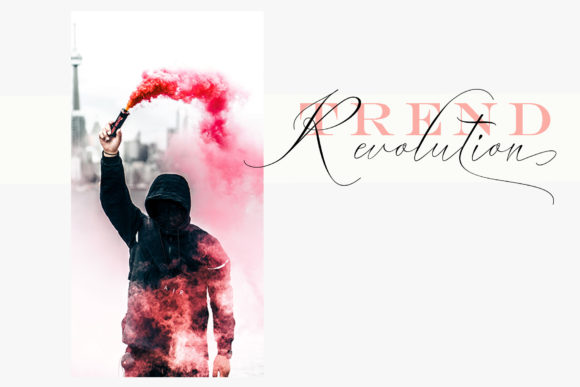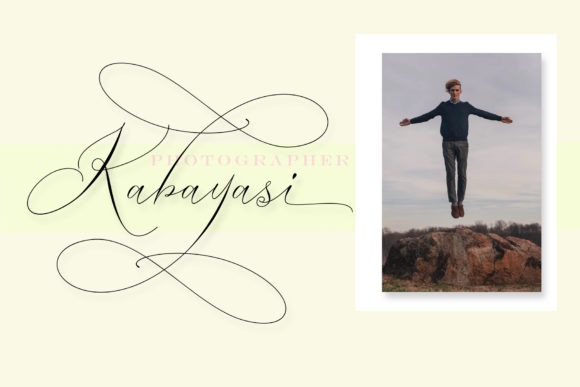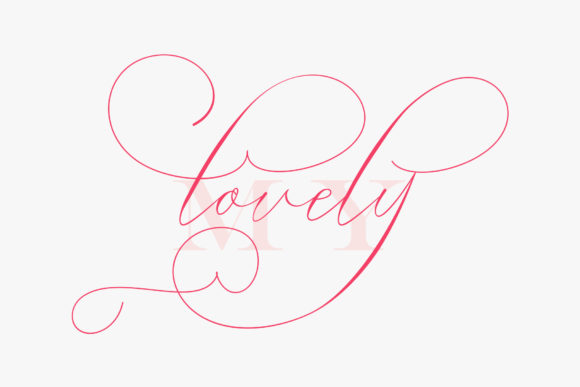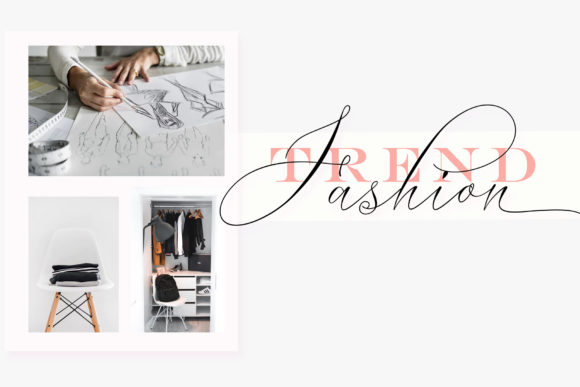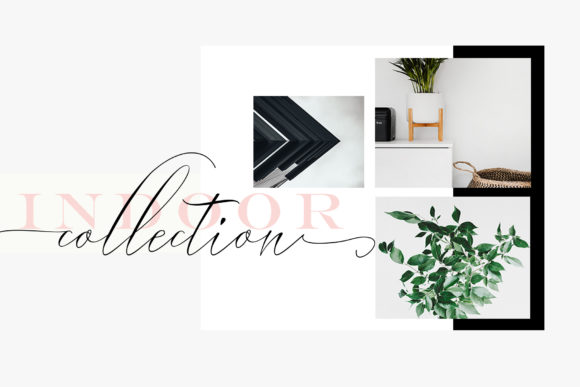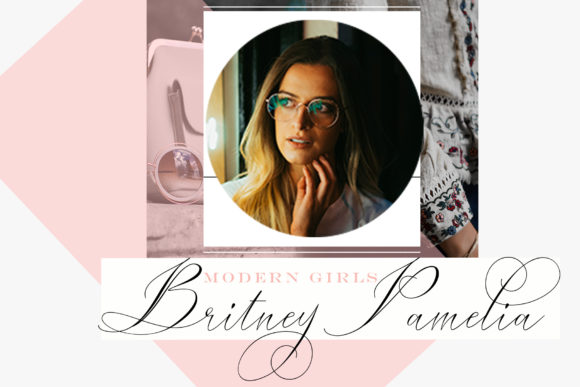
Bungalow Script Font: Adding a Loving Touch to Your Designs
The Bungalow script font is a delightful typeface that can add a warm and loving feeling to your designs. With its amazing handwritten touch, it’s perfect for crafters and designers who want to create a personal and emotional connection with their audience. In this article, we’ll explore the features and benefits of the Bungalow script font, and how you can use it to elevate your designs.
The Characteristics of Bungalow Script Font
The Bungalow script font is a beautiful, handwritten typeface that exudes warmth and friendliness. Its flowing lines and curves give it a natural, organic feel that’s perfect for creating a sense of comfort and approachability. The font features:
- Handwritten touch: The Bungalow script font has a lovely handwritten touch that makes it perfect for adding a personal touch to your designs.
- Flowing lines: The font’s flowing lines and curves create a sense of movement and fluidity, making it perfect for creating a sense of energy and dynamism.
- Natural feel: The Bungalow script font has a natural, organic feel that’s perfect for creating a sense of comfort and approachability.
Benefits of Using Bungalow Script Font
The Bungalow script font offers a range of benefits for designers and crafters, including:
- Emotional connection: The font’s handwritten touch and natural feel help create an emotional connection with your audience, making your designs more relatable and engaging.
- Versatility: The Bungalow script font is versatile and can be used for a range of design projects, from branding and packaging to invitations and stationery.
How to Use Bungalow Script Font in Your Designs
The Bungalow script font can be used in a range of design projects, including:
- Branding and packaging: Use the Bungalow script font to create a warm and welcoming brand identity that resonates with your audience.
- Invitations and stationery: Add a personal touch to your invitations and stationery with the Bungalow script font, making them more special and memorable.
- Digital designs: Use the font in your digital designs, such as social media graphics and blog posts, to add a touch of warmth and personality.
Tips for Getting the Most Out of Bungalow Script Font
To get the most out of the Bungalow script font, try the following tips:
- Use it with contrasting fonts: Pair the Bungalow script font with contrasting fonts to create visual interest and hierarchy.
- Experiment with colors: Try out different colors and textures to add depth and dimension to your designs.
- Keep it simple: Don’t overcomplicate your designs – keep them simple and clean to let the font shine.
The Bungalow script font is a beautiful and versatile typeface that can add a loving touch to your designs. With its handwritten touch and natural feel, it’s perfect for creating an emotional connection with your audience. Whether you’re a designer or crafter, the Bungalow script font is a great addition to your toolkit. So why not give it a try and see how it can elevate your designs?
The Bungalow is a happy typeface. It has an amazing handwritten touch which is perfect for adding a loving feeling to you designs.